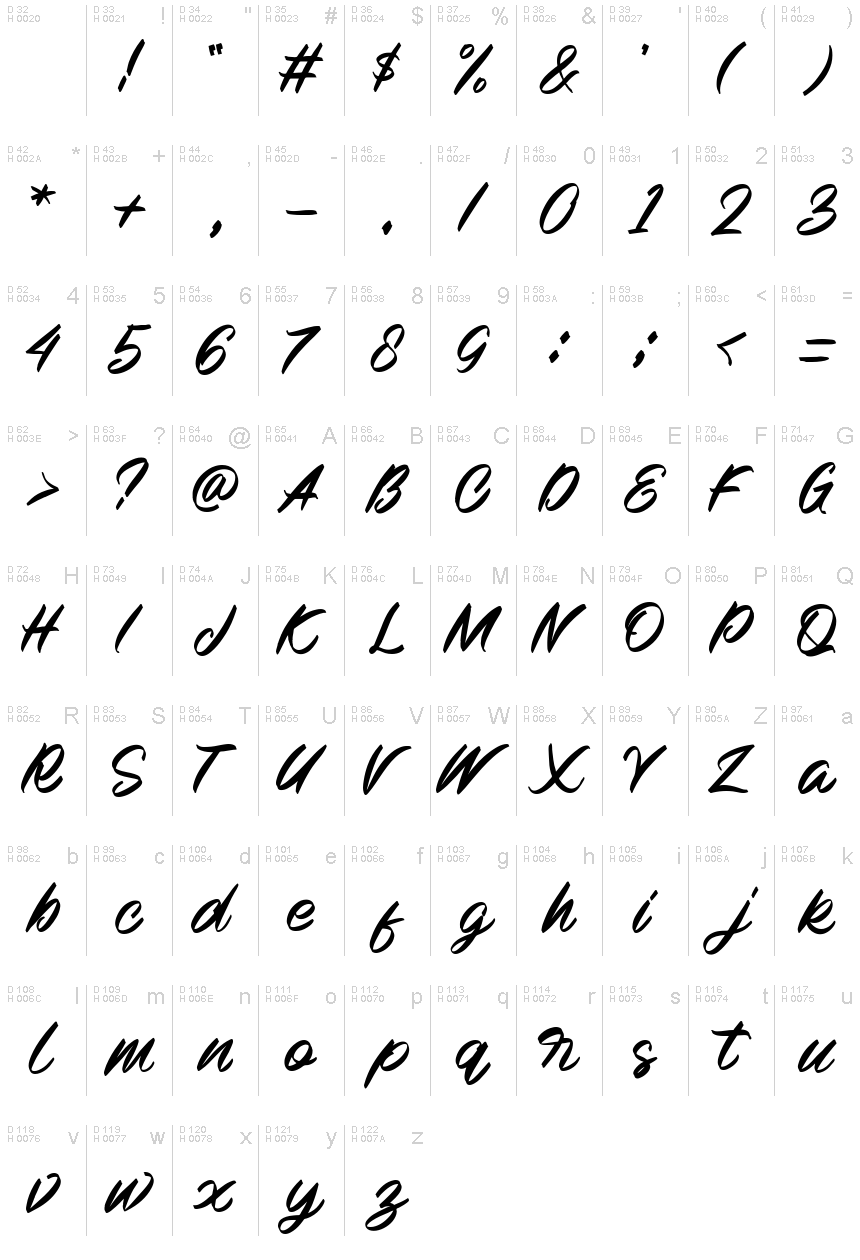
Chilli Peppers, a creation of Letterara, brings the intimate touch of handwritten correspondence to digital design. Its fluid, cursive strokes evoke the warmth and personal feel of a note penned by hand. With its elegant loops and slight slant, Chilli Peppers exudes a casual sophistication that is both inviting and expressive.
This font's charm lies in its versatility—ideal for designs that require a personal touch, such as invitations, greeting cards, and branding for boutique businesses. Its legible yet distinct style makes it equally fitting for quotes or editorial headings that aim to draw the reader in with an air of artisanal craftsmanship. Chilli Peppers stands out as a font that can transform any message into something memorably heartfelt.